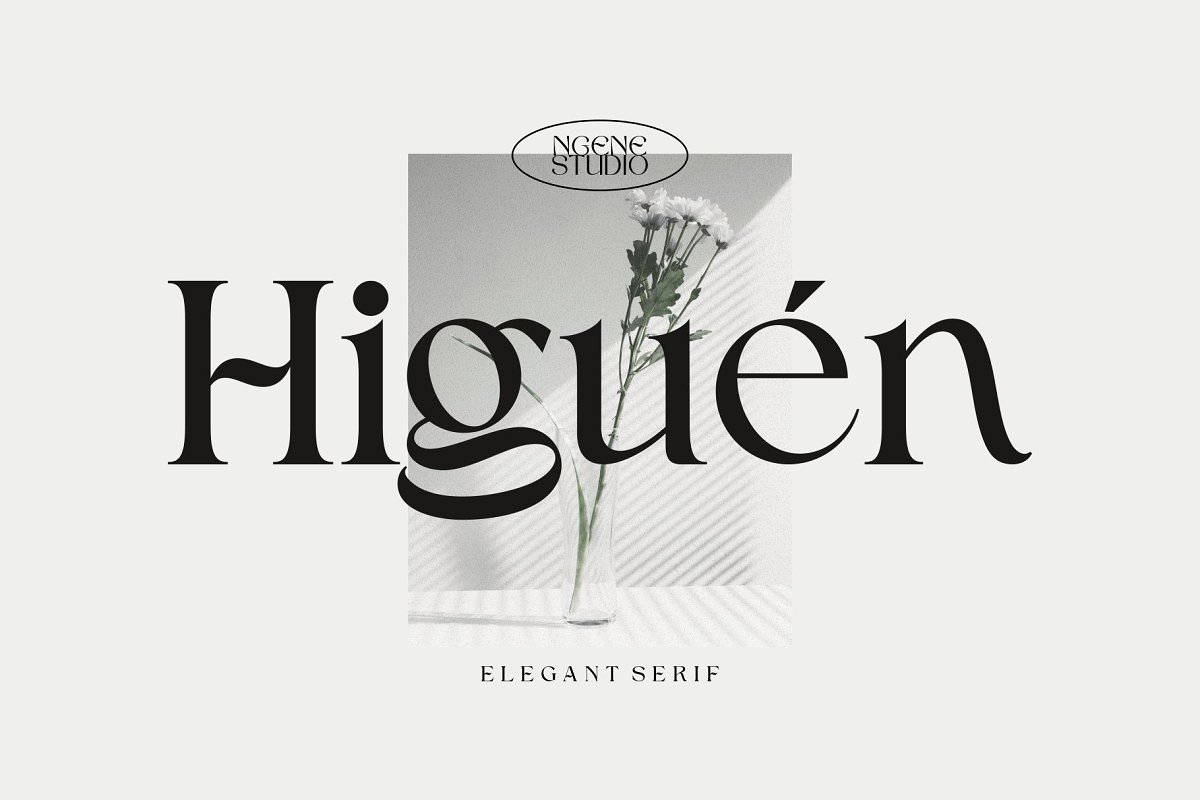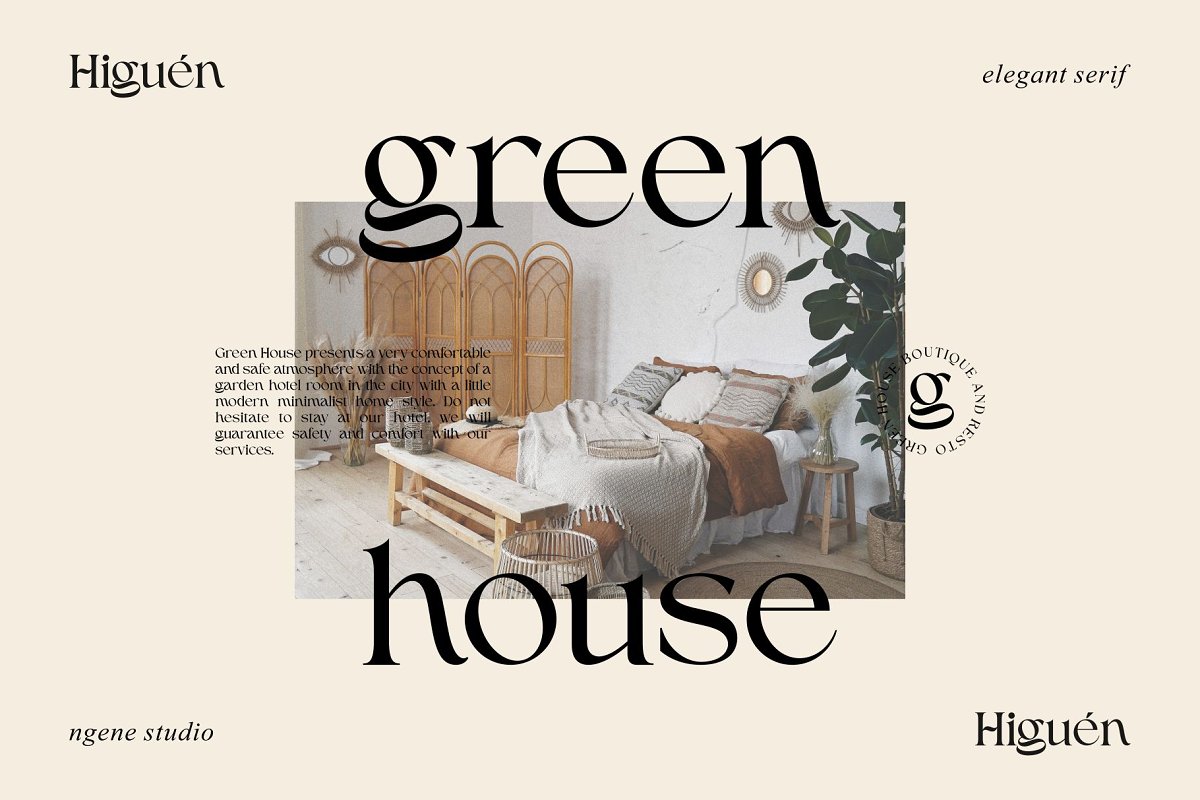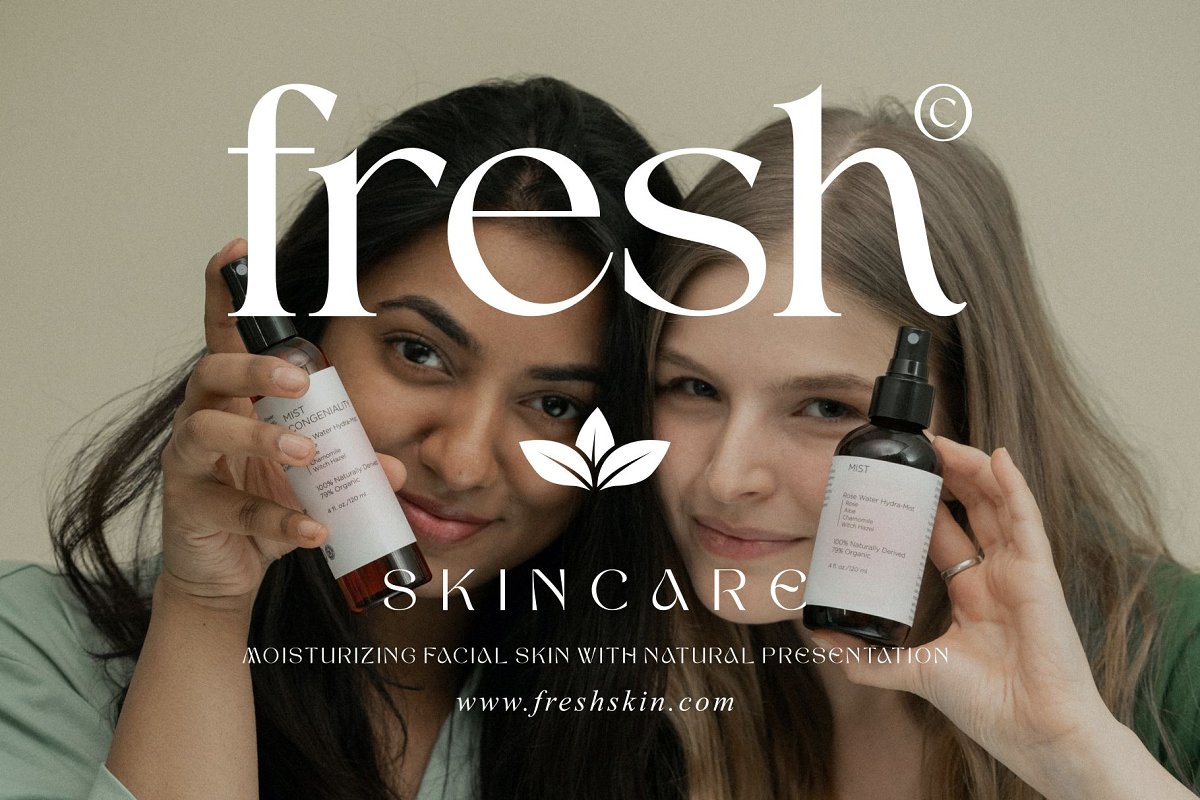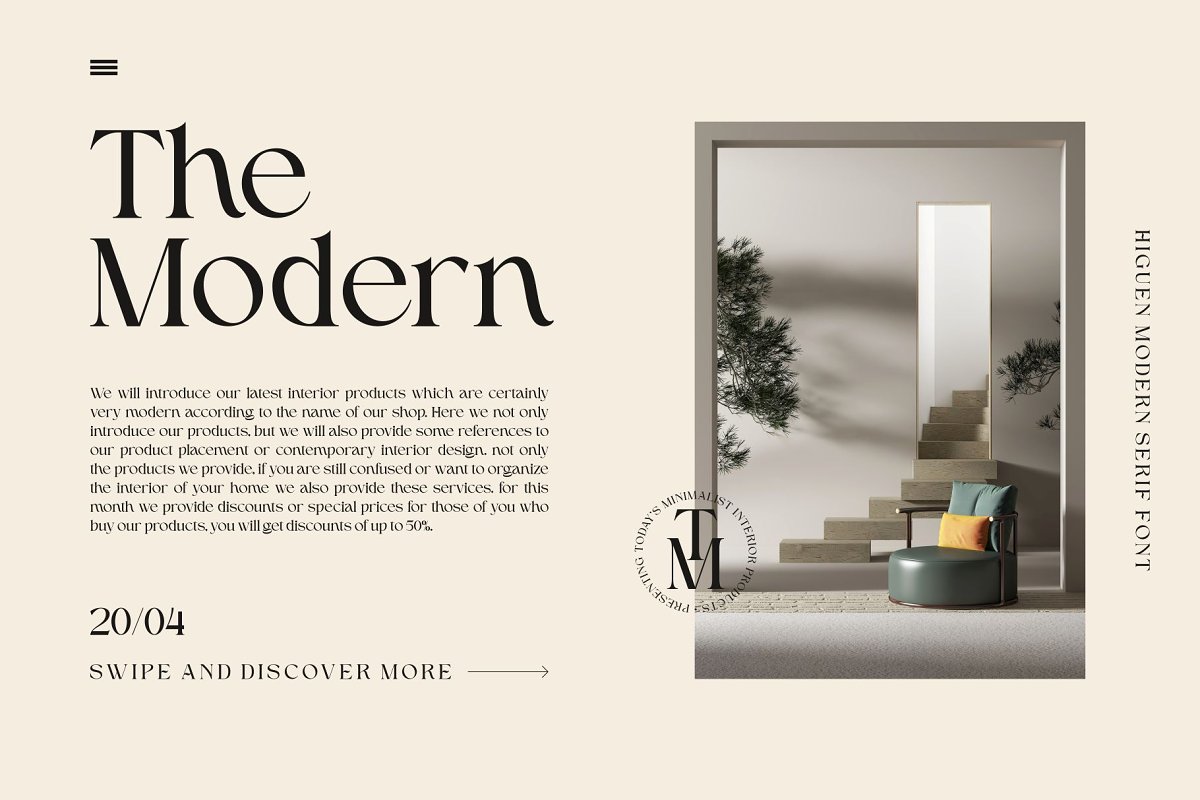
About the Higuen Elegant Serif
INTRODUCEHiguen vintage style serif font with an elegant and modern touch, this font draws from a wide variety of characters, This font has several alternatives built into it, perfect for creating logo designs, badges, web fonts, magazines and more, With a very strong font character will make your design different and more attractive, This font is also multilingual, making it easier for you to use the language you need